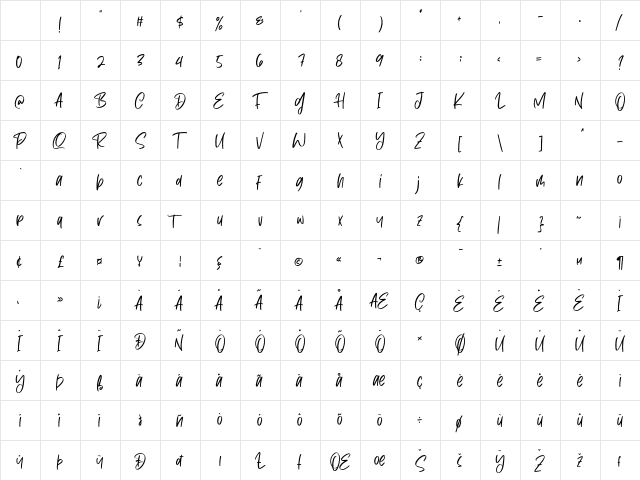
Complete Dark Phoenix Regular glyph index. Displaying only characters natively supported by Dark Phoenix Regular font.
Dark Phoenix is a composed and adaptable typeface that performs quietly and consistently across a wide range of design contexts.